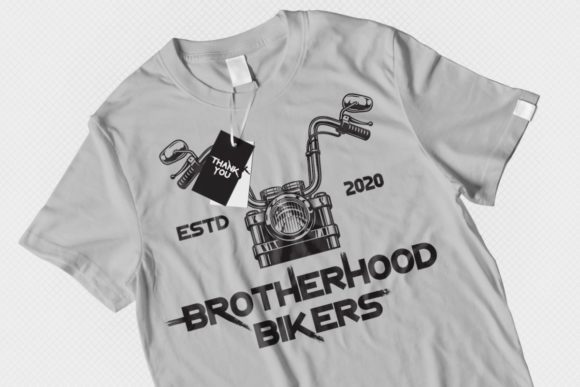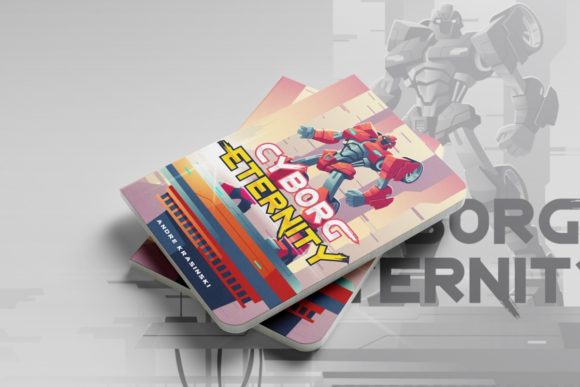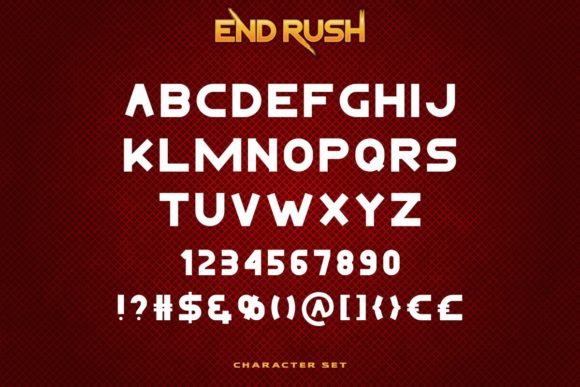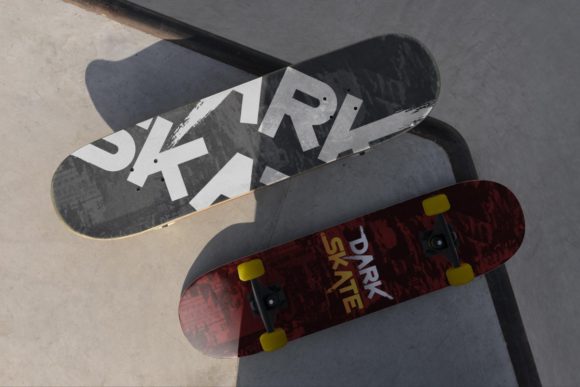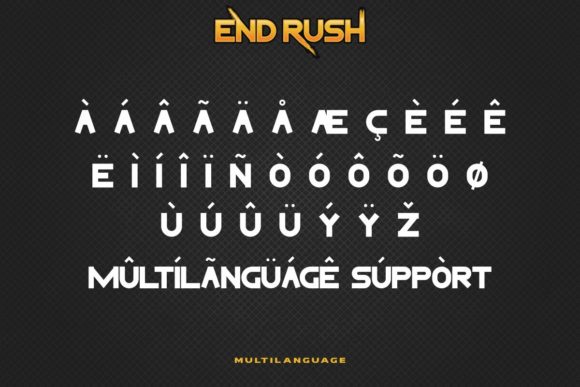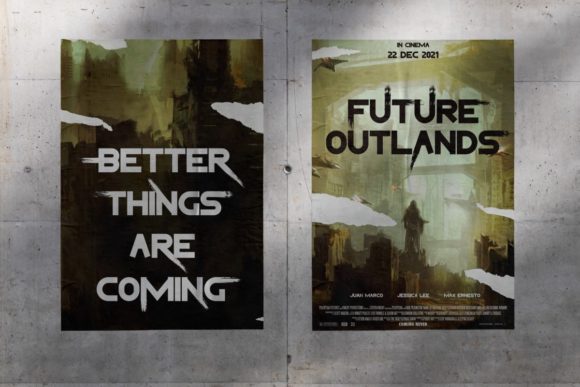
Unleash Your Creativity with End Rush Font: The Ultimate Display Font for Designers and Crafters
Are you tired of using the same old fonts for your designs? Do you want to add a touch of speed, fire, and gaming style to your creations? Look no further than End Rush Font, a modern and strong display font that’s perfect for designers and crafters alike. In this article, we’ll dive into the features and benefits of End Rush Font, and explore how it can take your designs to the next level.
What is End Rush Font?
End Rush Font is a display font that’s designed to make a statement. With its wide sans serif style and fire edges texture, this font is perfect for creating bold and eye-catching designs. Whether you’re working on a branding project, digital design, or greeting card, End Rush Font is the perfect choice. Its modern and strong aesthetic is sure to grab attention and leave a lasting impression.
Key Features of End Rush Font
- Speed, Fire, and Gaming Style Effect: End Rush Font is designed to evoke the speed, energy, and excitement of gaming and fire effects. Its unique texture and design elements make it perfect for creating dynamic and engaging designs.
- PUA Encoded: End Rush Font is PUA (Private Use Area) encoded, which means that you can access all of the glyphs and swashes with ease. This makes it easy to customize your designs and add unique touches.
- Wide Sans Serif Style: The wide sans serif style of End Rush Font makes it perfect for creating bold and eye-catching headlines and titles.
- Fire Edges Texture: The fire edges texture of End Rush Font adds a unique and dynamic element to your designs. It’s perfect for creating designs that need a touch of energy and excitement.
Benefits of Using End Rush Font
So why choose End Rush Font for your designs? Here are just a few benefits of using this amazing display font:
- Add a Touch of Speed and Energy: End Rush Font is perfect for designers and crafters who want to add a touch of speed and energy to their designs. Its unique texture and design elements make it perfect for creating dynamic and engaging designs.
- Perfect for Gaming and Sports Designs: If you’re working on a design project for a gaming or sports brand, End Rush Font is the perfect choice. Its speed, fire, and gaming style effect make it perfect for creating bold and eye-catching designs.
- Versatile: End Rush Font is versatile and can be used for a wide range of design projects, from branding and digital design to greeting cards and more.
- Choose the Right Size: End Rush Font is designed to be used at larger sizes, so choose a size that’s big enough to make an impact.
- Experiment with Colors: End Rush Font looks great in bold and bright colors, so don’t be afraid to experiment and find the perfect color for your design.
- Pair it with Other Fonts: End Rush Font can be paired with other fonts to create a unique and interesting design. Try pairing it with a sans serif font for a bold and modern look.
End Rush Font is a powerful and dynamic display font that’s perfect for designers and crafters who want to add a touch of speed, fire, and gaming style to their designs. With its wide sans serif style, fire edges texture, and PUA encoding, this font is easy to use and customize. Whether you’re working on a branding project, digital design, or greeting card, End Rush Font is the perfect choice. So why wait? Download End Rush Font today and take your designs to the next level!